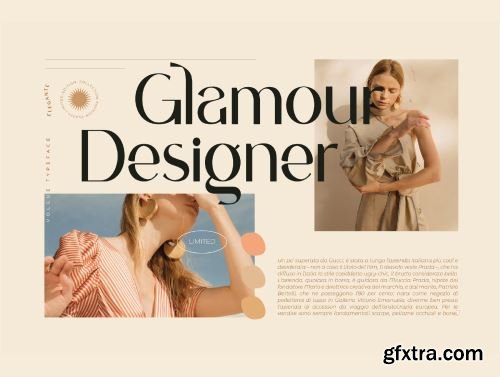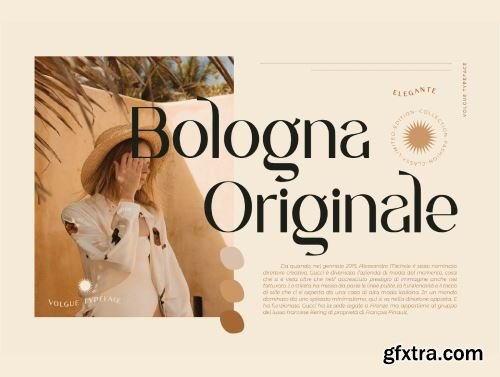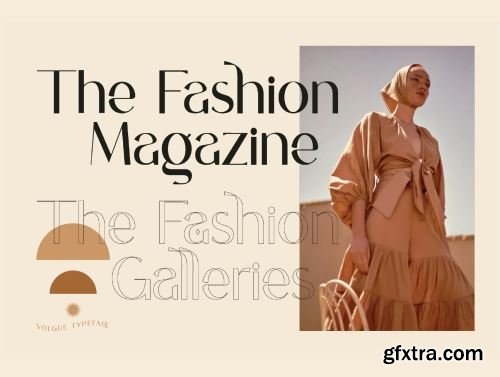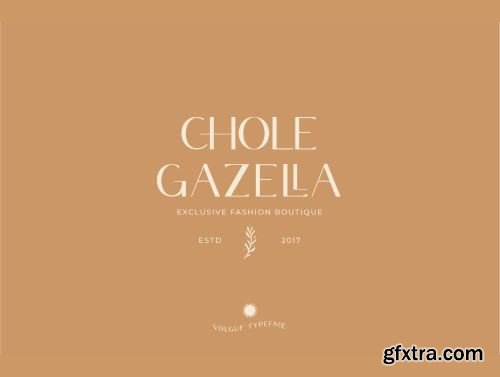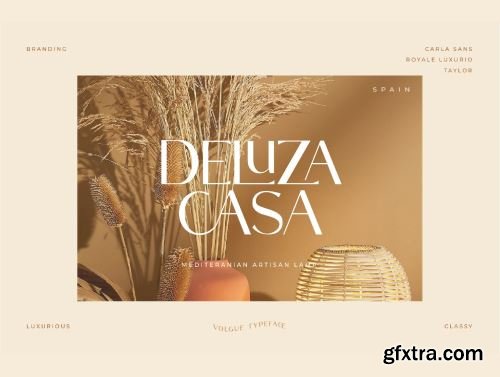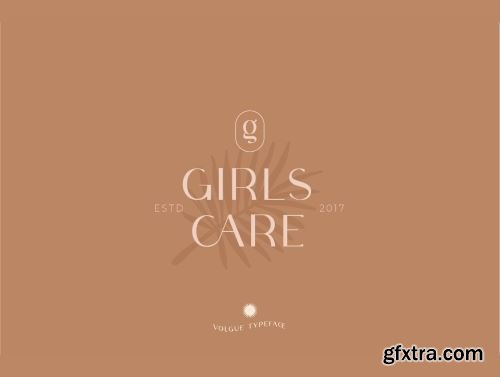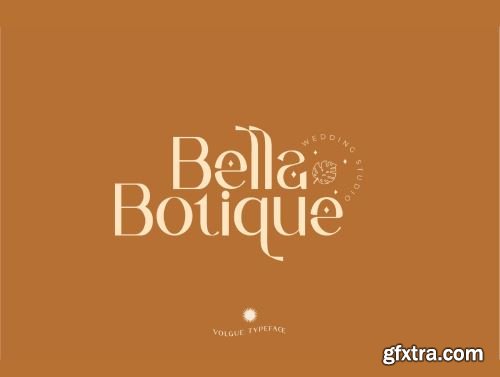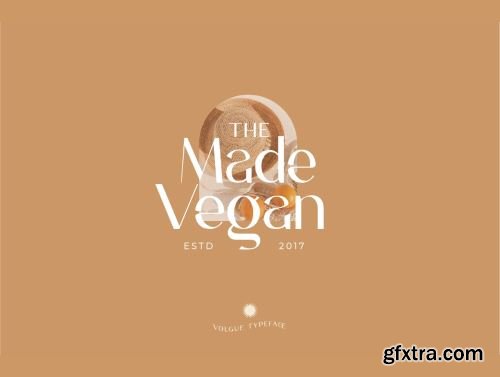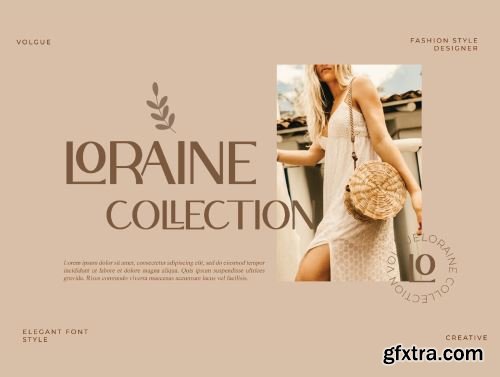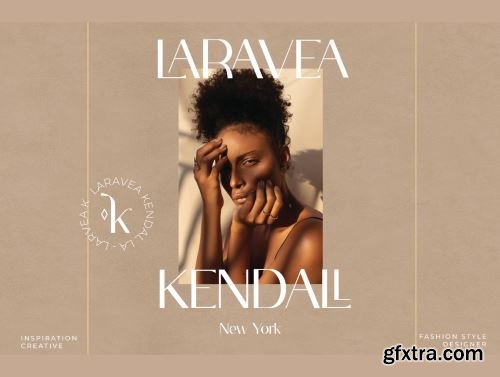
Volgue is a classic modern font that is both stylish and unique with smooth curves and beautiful ligatures, tons of special alternative glyphs, ornament and multilingual support.